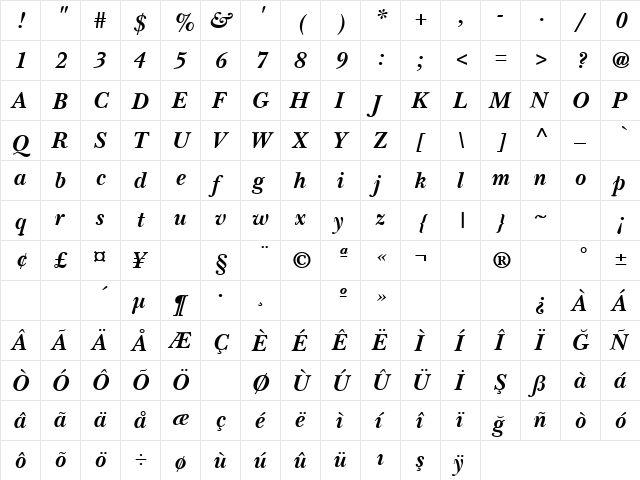
TR Baez Bold Italic
Design Context for TR Baez Typeface
TR Baez offers clean, dependable letterforms without strong stylistic allegiance, making it a practical choice for designers who need flexibility. The slanted form adds forward momentum and visual energy. The heavy weight commands attention and anchors typographic hierarchies.
Pro Tip: Try TR Baez for annotation and caption copy alongside an upright companion — the contrast in angle creates a dynamic but ordered typographic system.